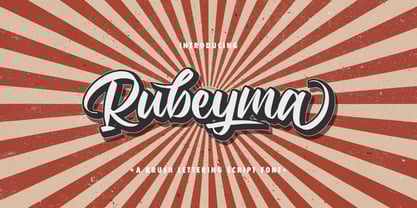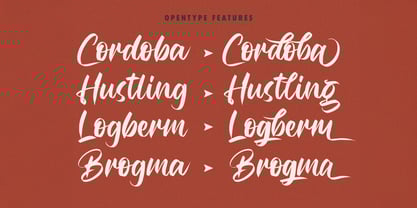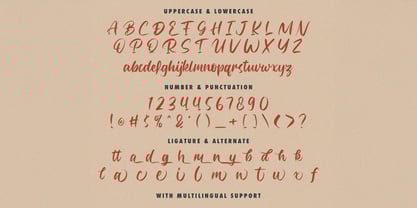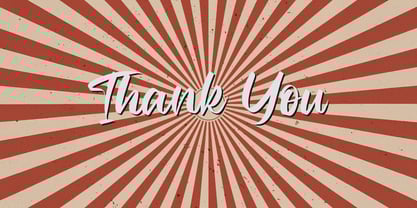
The Rubeyma Font Family was designed by Virgiawan Listanto and published by Stringlabs Creative Studio. Rubeyma contains 1 styles.
Rubeyma is your go-to for a vibrant and assertive script. This bold font features distinctive letterforms that command attention, ensuring your designs stand out with style and personality.
Rubeyma